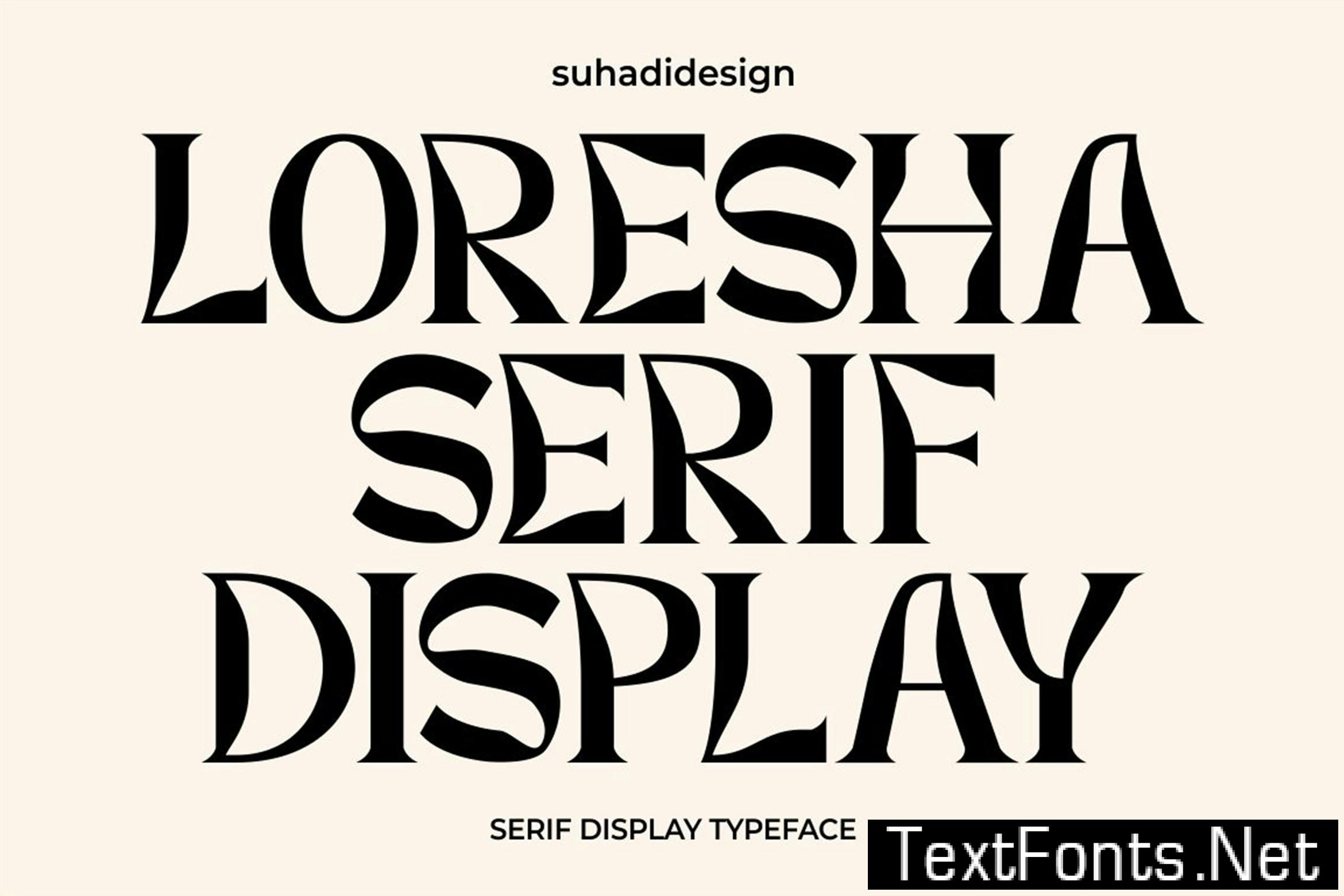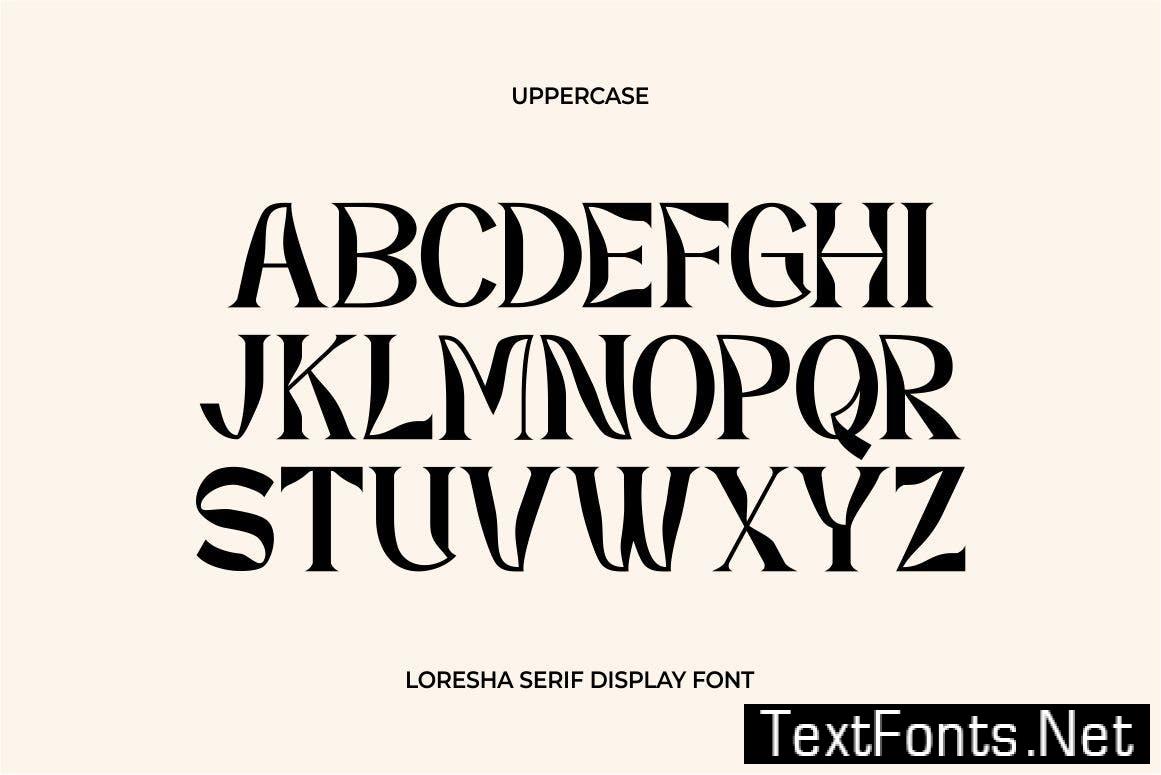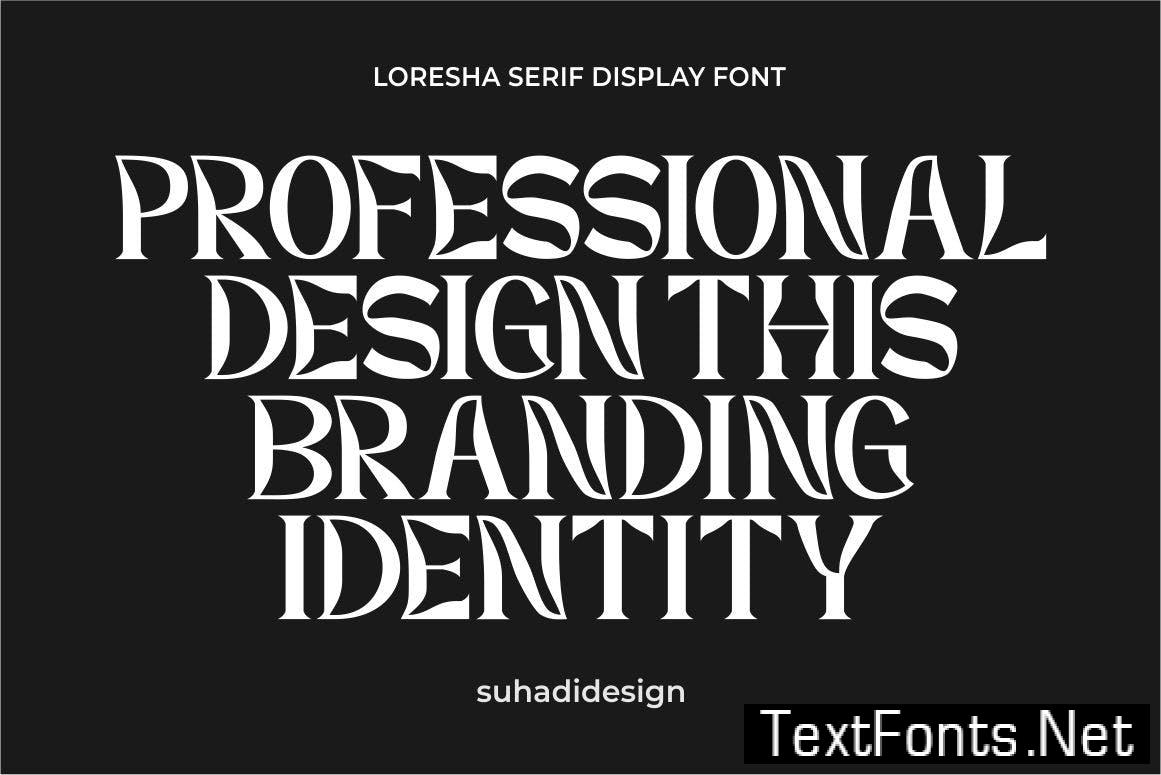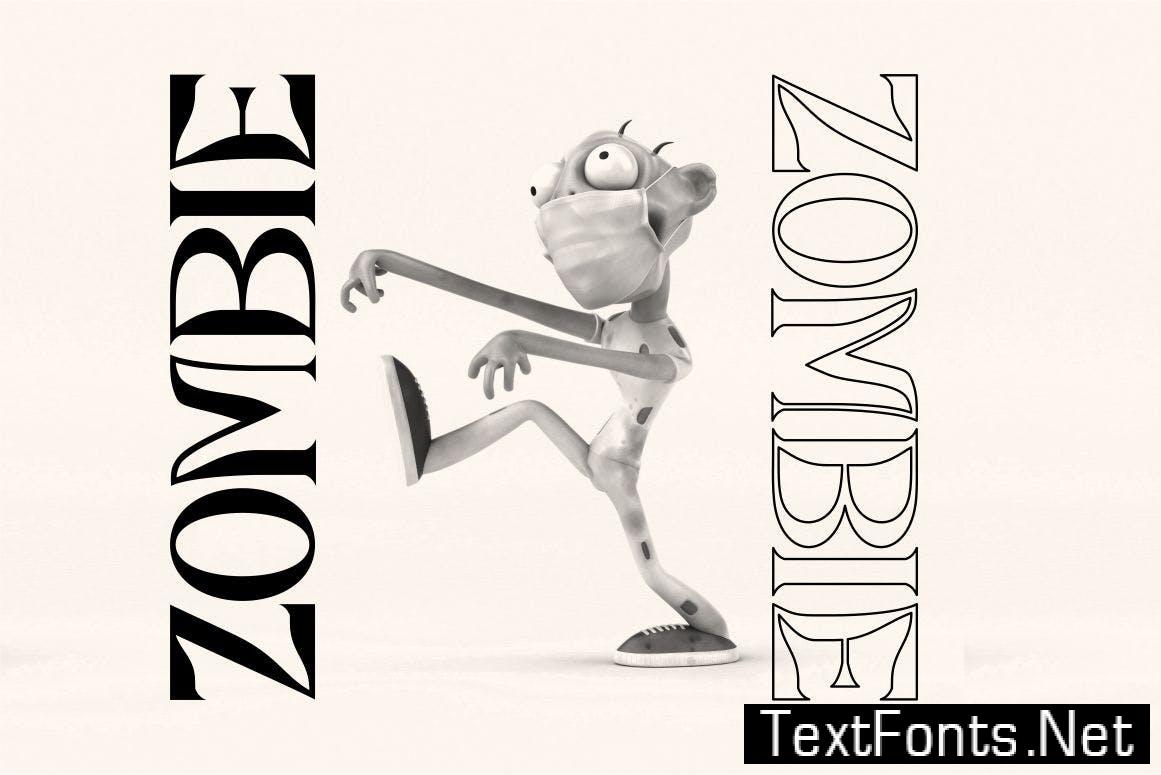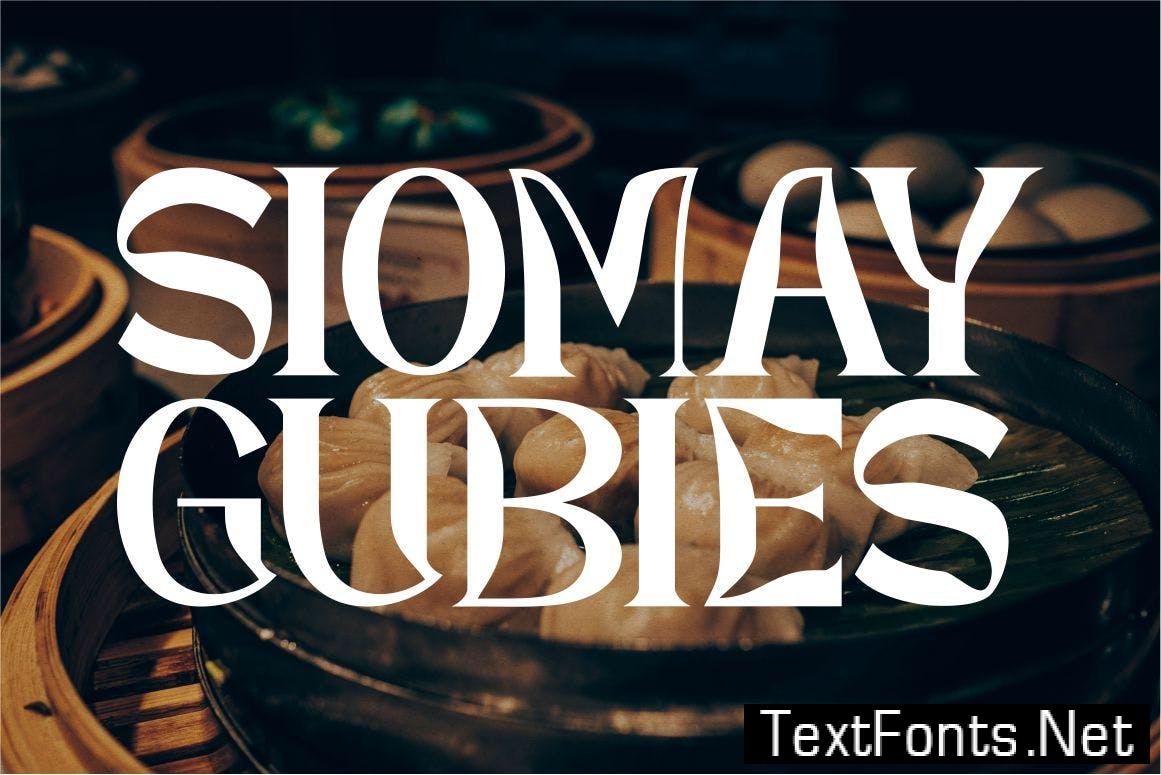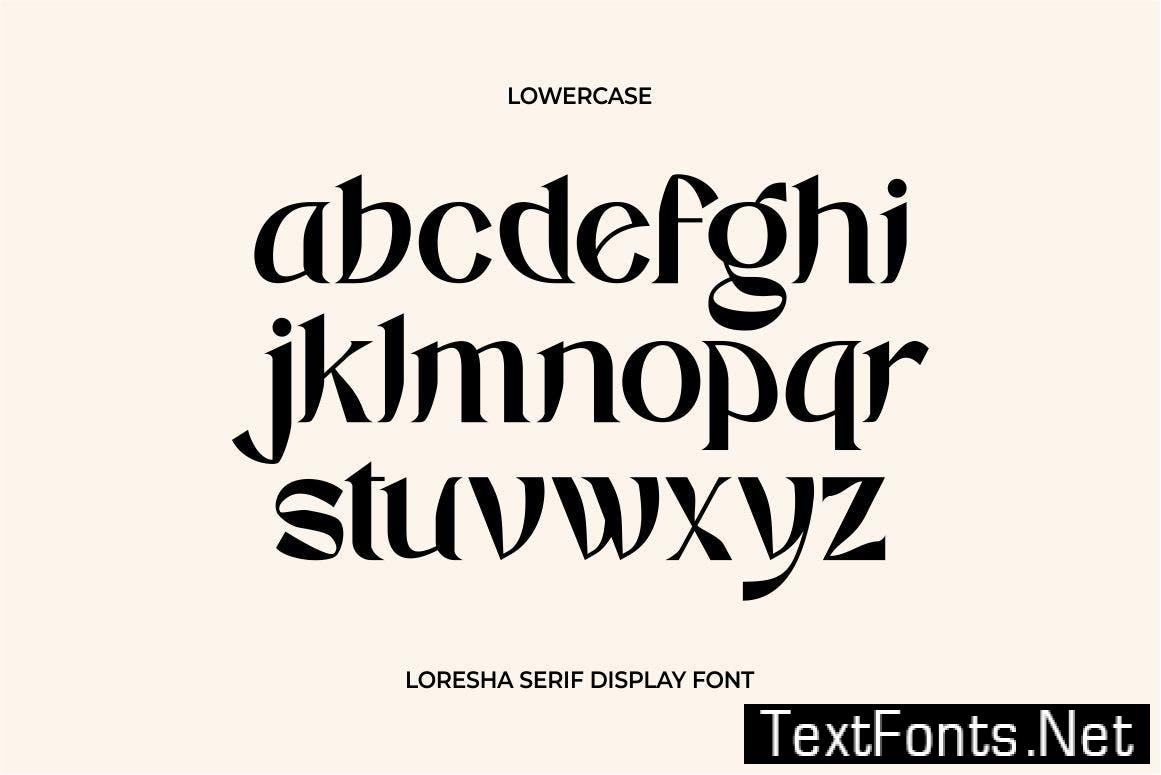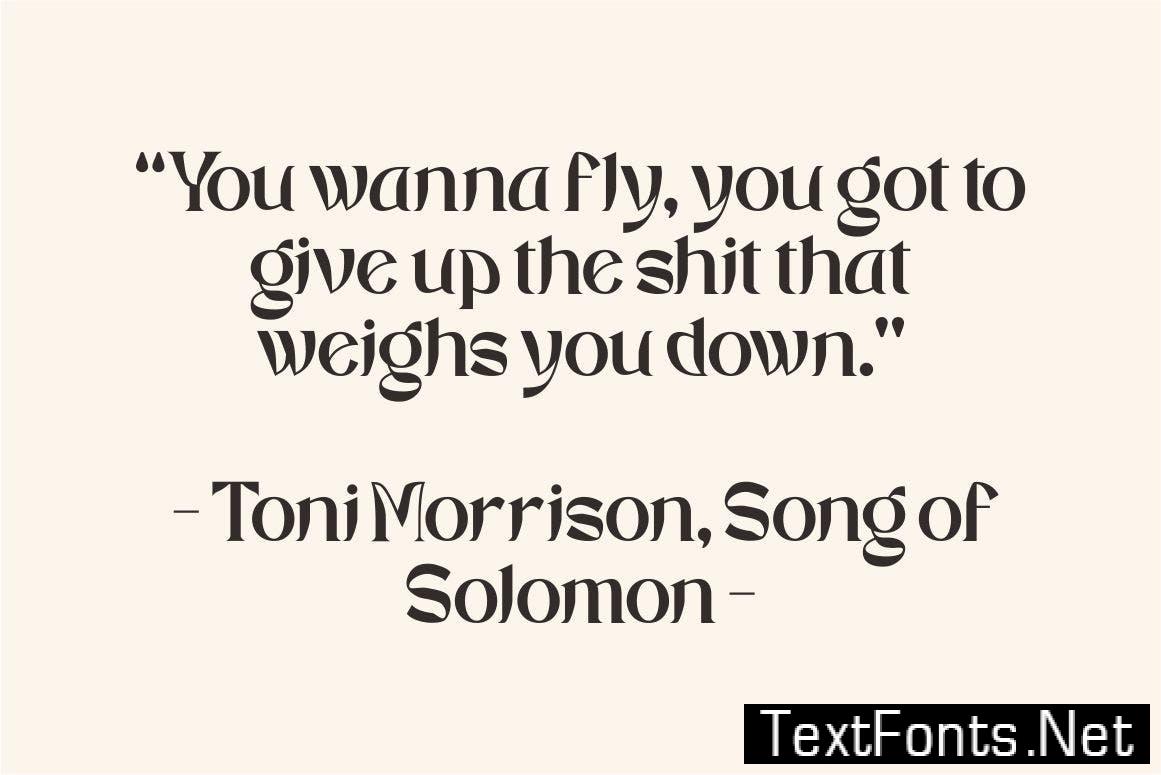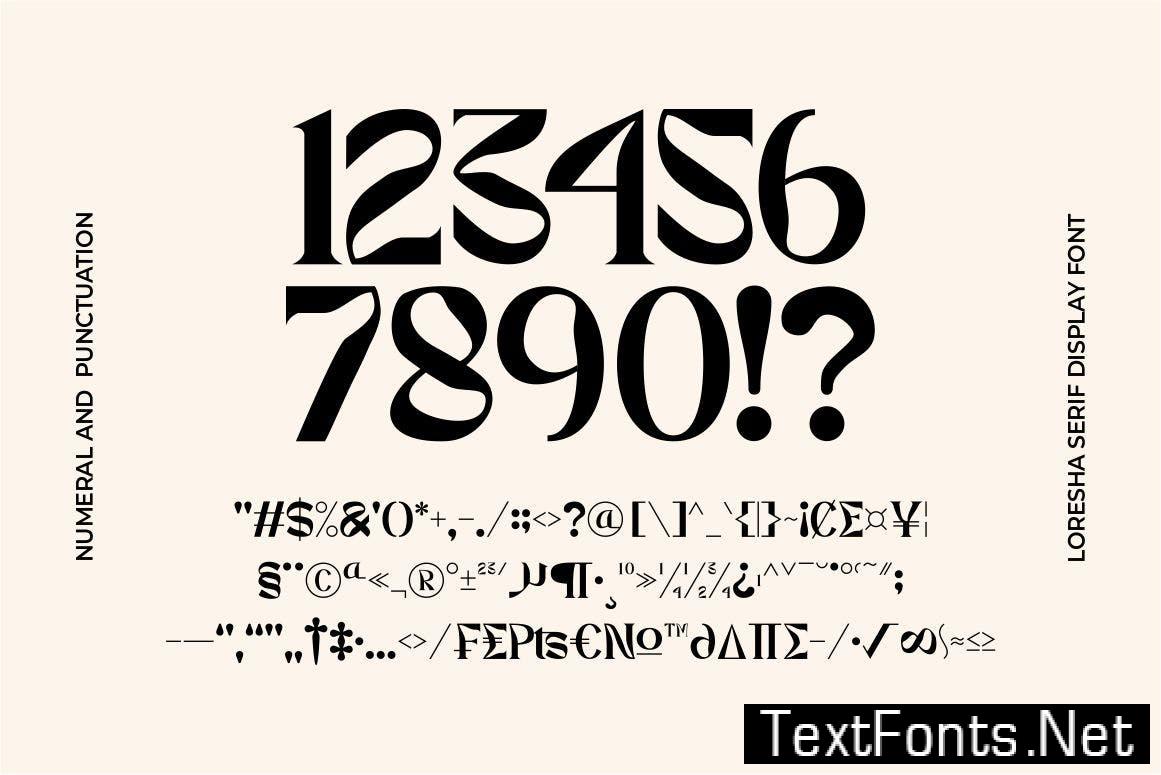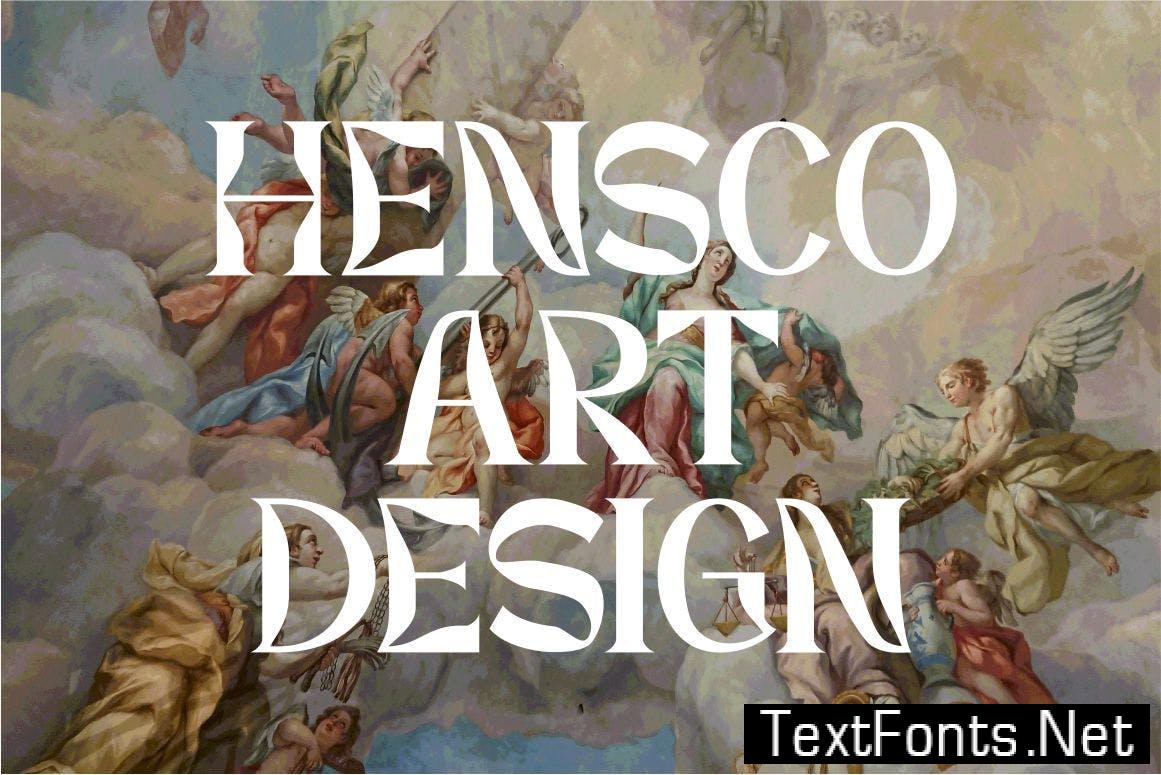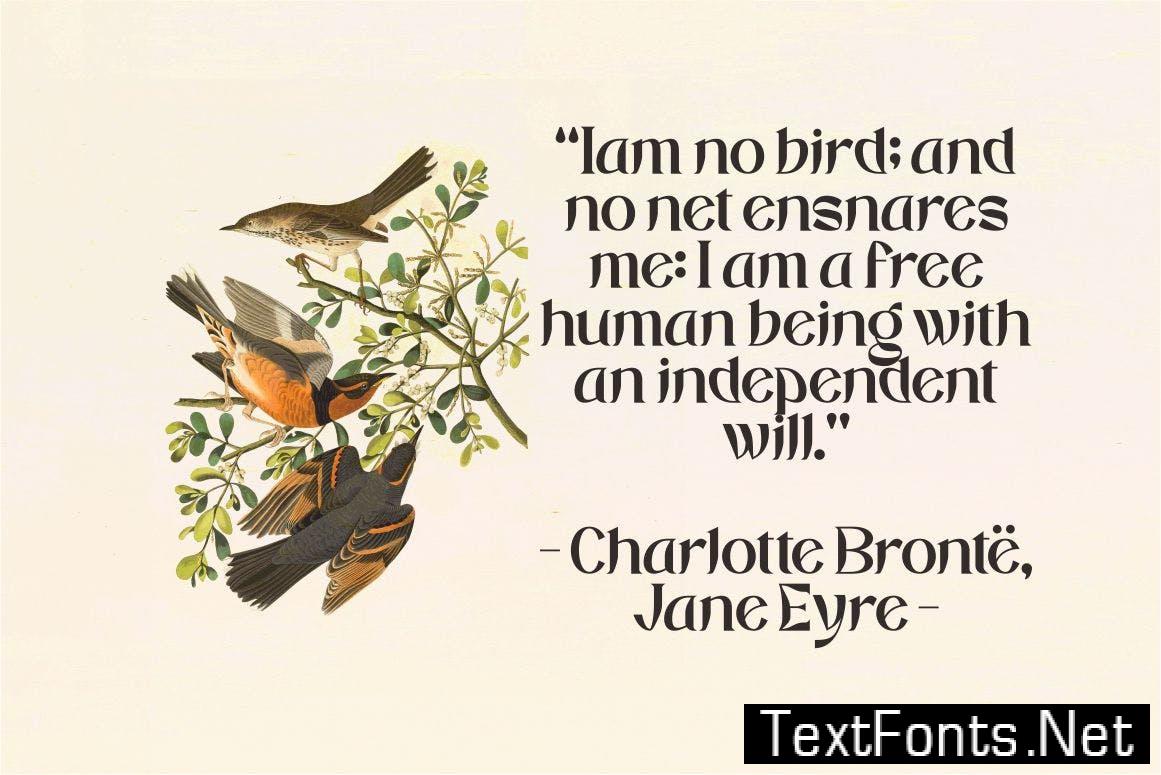
Loresha Serif Display Font
Hi Ladies and Gentlemen! Market demand for unique display typeface fonts, I design display fonts that suit your views. Namely the Loresha Serif Display font, is a serif font with a unique appearance. We made this font unique and easy to use. Loresha Serif Display Font is a great choice for brands, brand names, branding, labels, mosaic designs, paintings, and other projects.
Font Features:
• Uppercase
• Lowercase
• Multilingual support
• Numbers and punctuation